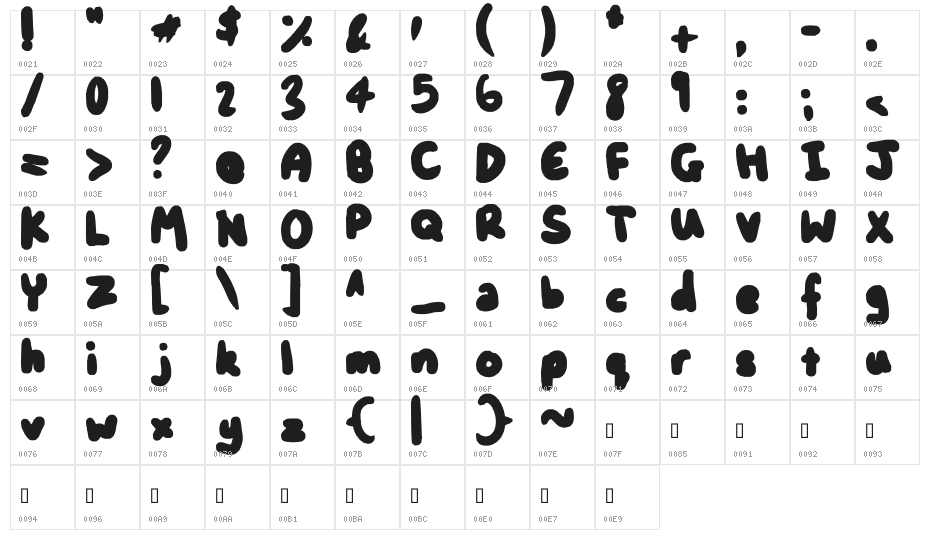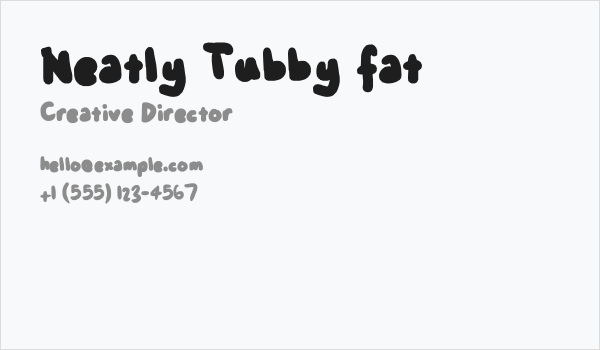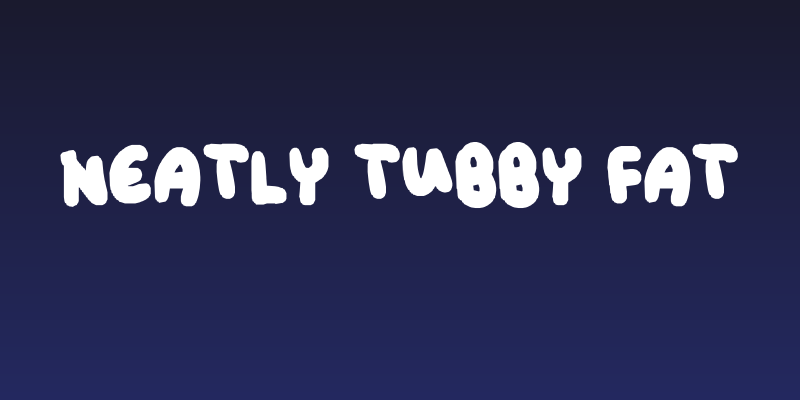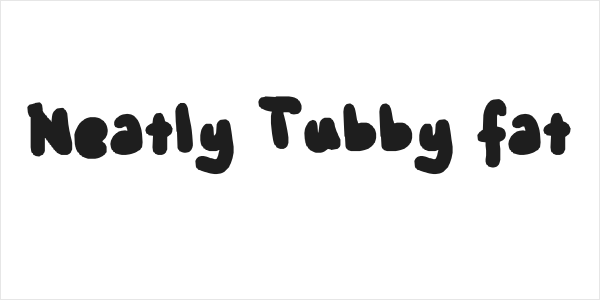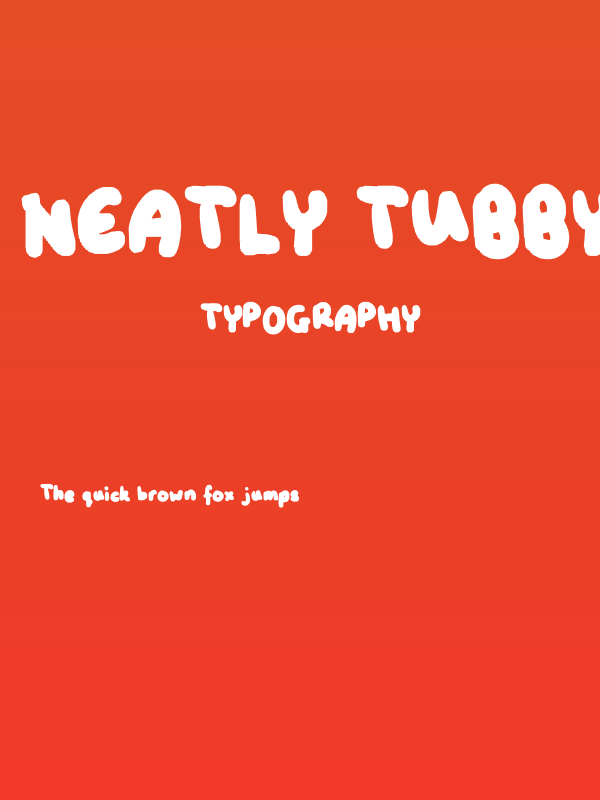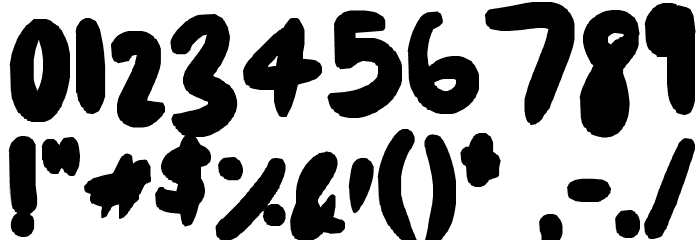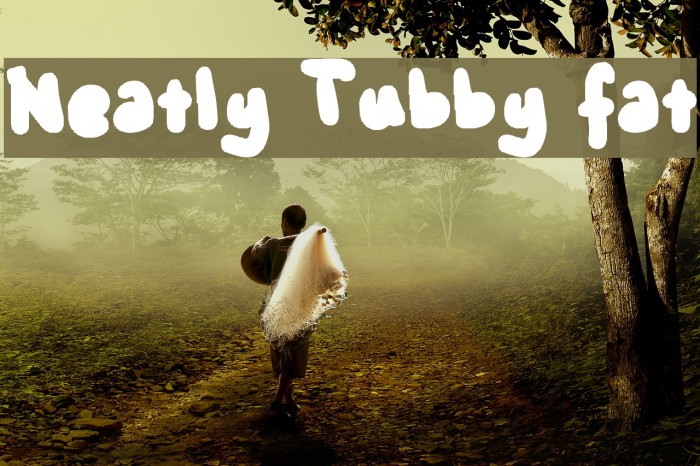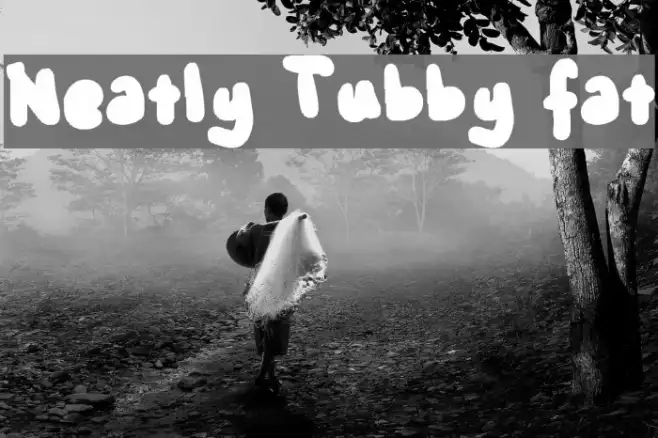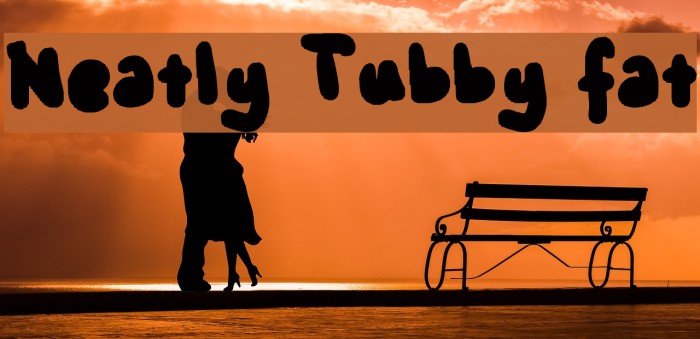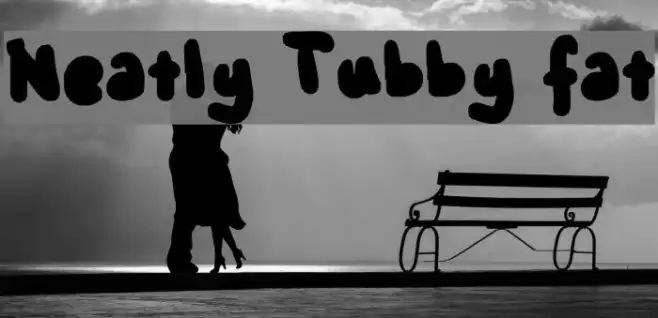
Neatly Tubby fat Font
Neatly Tubby fat Description
This playful and bold font features thick, rounded characters that convey a sense of fun and approachability. The letters are uniformly wide, creating a cohesive and chunky appearance. The strokes are consistent in thickness, giving the font a low contrast. Its informal style makes it suitable for projects that aim to be friendly and engaging. The characters are closely spaced, enhancing the compact feel of the text. This font is ideal for creative projects where a whimsical and light-hearted tone is desired.
| Overall Style | Playful |
| Proposed Projects | Children's books, playful branding, casual invitations, and fun posters. |